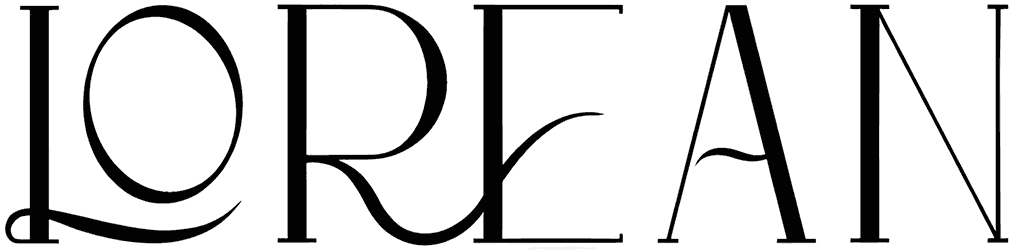
Lorean Font
Bring more creativity to your typography arrangement using a professional luxury serif font, sharing both trendy and nostalgic senses through its curly serifs.
Lorean, besides its delicate letterforms, can show off its finest in devising posters, headlines, greeting cards, music covers, and other printed text. Moreover, its different capital sets can work pleasingly to stimulate all innovators to pick it in keeping the classic feel alive in their assignments.